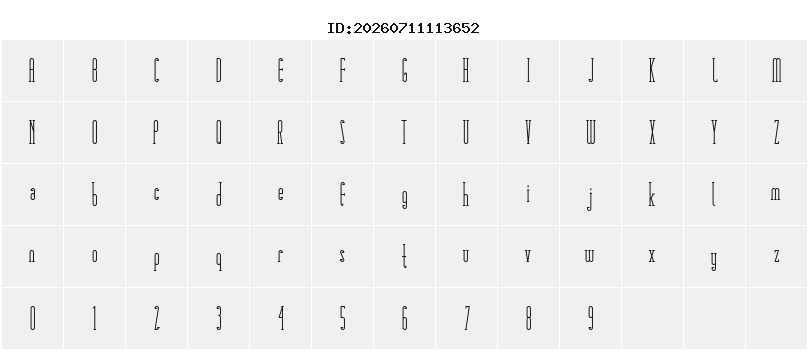
Matchbook Preview
• Font Name: Matchbook
• Full Font Name: Matchbook Serif
• Designer: Brian Haines
• Manufacturer: One by Four
About Matchbook.ttf
Matchbook.ttf is a modern, elegant sans-serif font designed for ultimate readability and visual harmony. Perfect for branding, headlines, web design, and print materials.